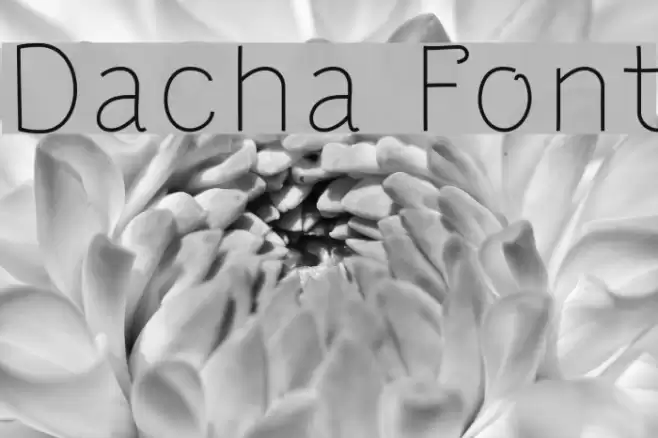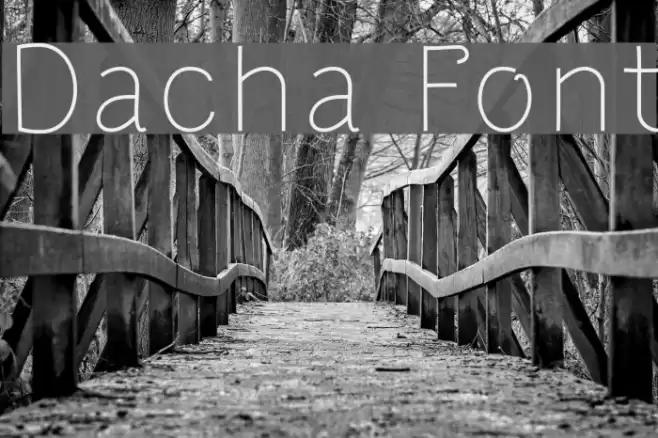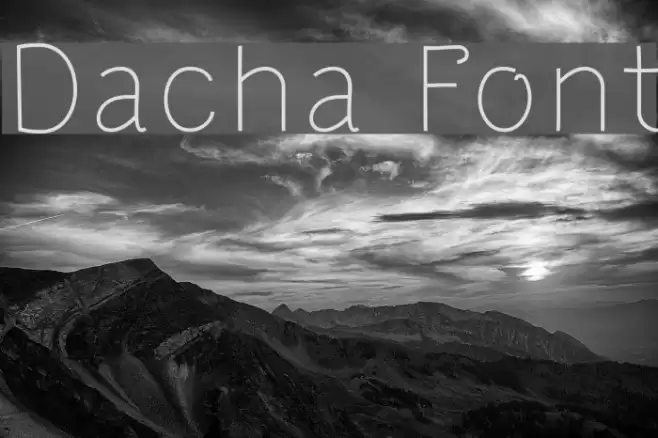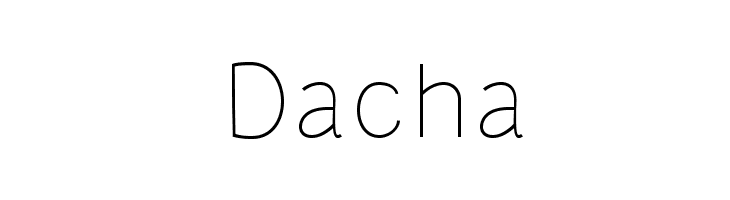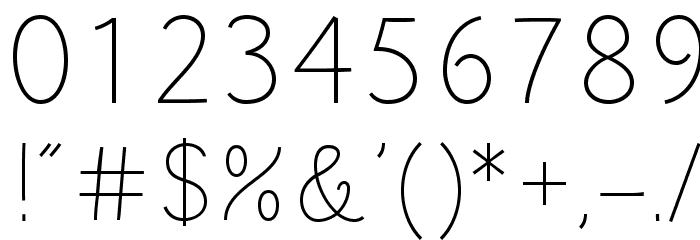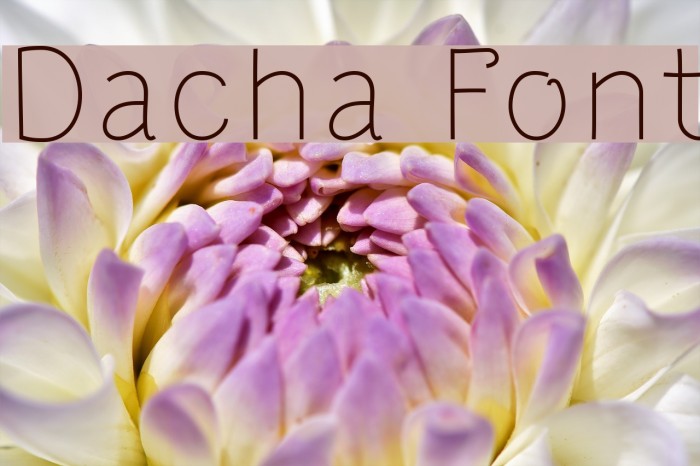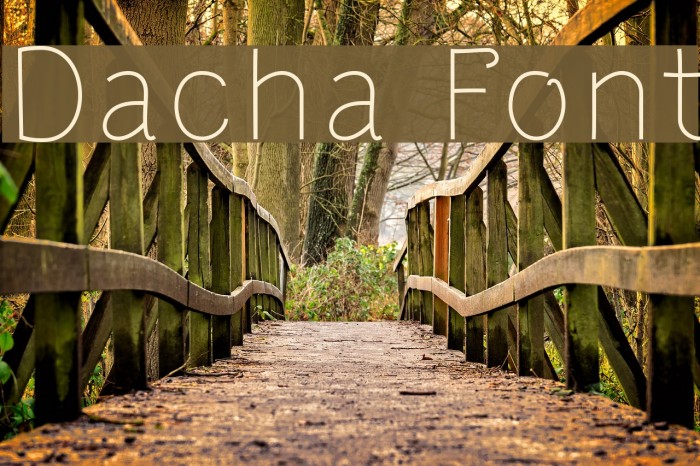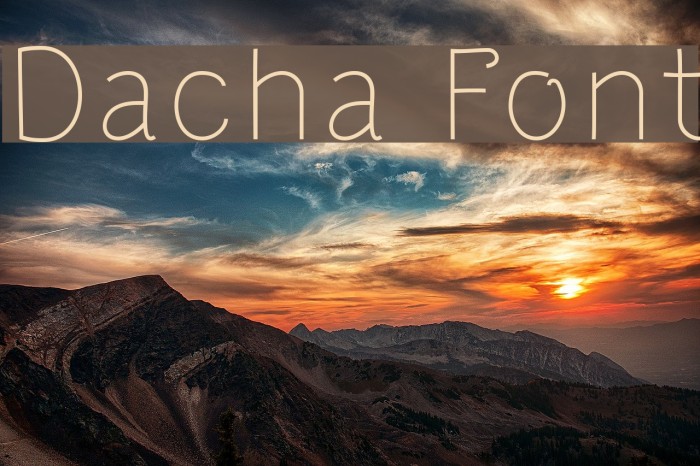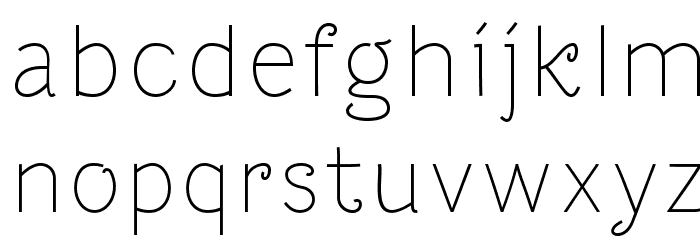
Dacha Font
Dacha Description
This font features a unique blend of modern and decorative elements, characterized by its thin, elegant strokes and subtle flourishes. The uppercase letters have a distinct style, with some characters like 'G' and 'K' incorporating playful curls and loops. The lowercase letters maintain a consistent, clean appearance, while numerals are straightforward and easy to read. Special characters are designed with a touch of whimsy, adding to the font's overall charm. Its delicate lines and artistic flair make it suitable for creative projects that require a touch of sophistication.
A modern, decorative font with elegant strokes and playful flourishes from Uncategorized fonts.
- Proposed Projects: Ideal for wedding invitations, branding, logos, and artistic posters.
- Weight: Light
- Overall Style: Modern, Decorative
- Use Case: Logos, Invitations, Artistic Projects